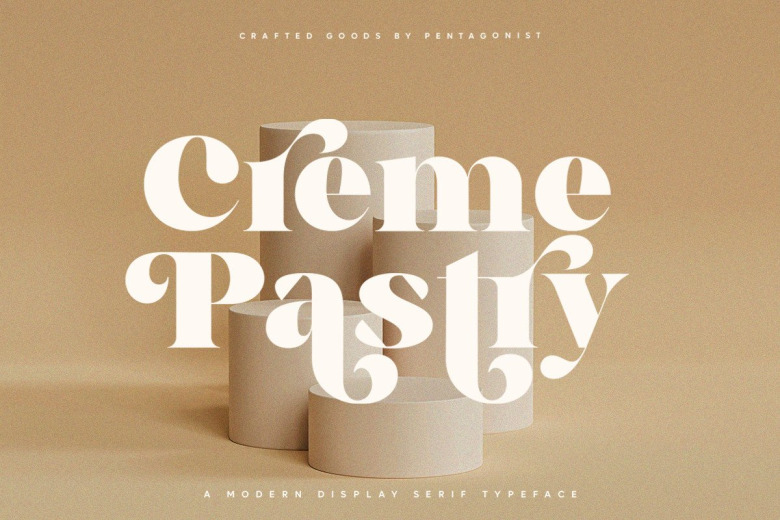
Creme Pastry Font
Creme Pastry is an elegant and decorative display serif font with a unique feel. Ideal for luxury, gorgeous, high-end projects – suitable to make super beautiful modern and stylish design.
Creme Pastry Serif Font